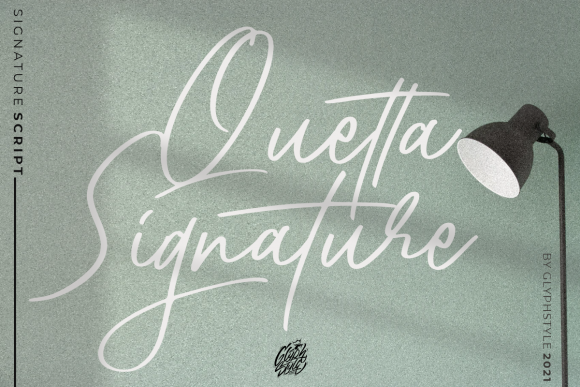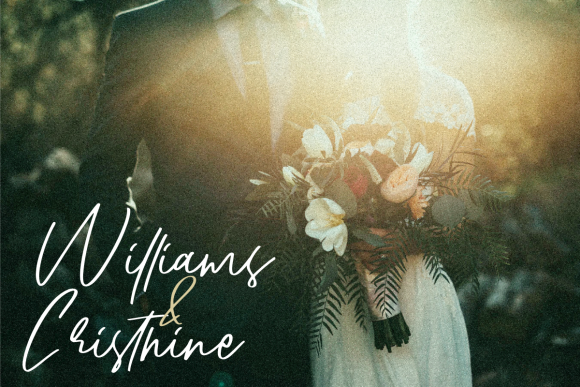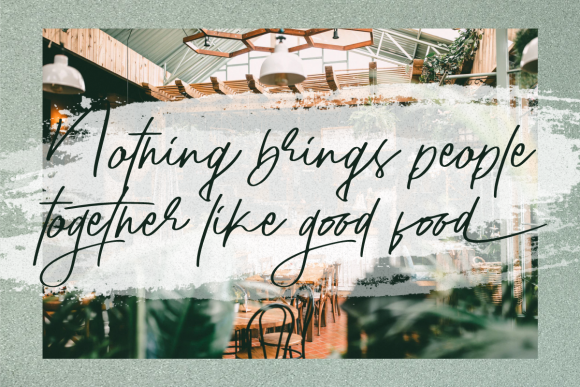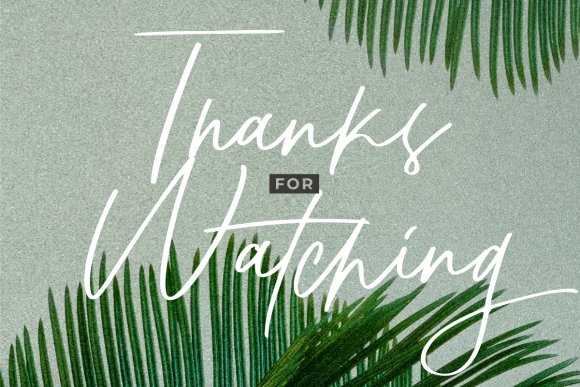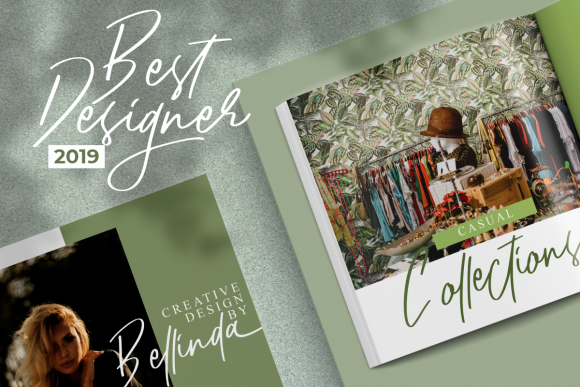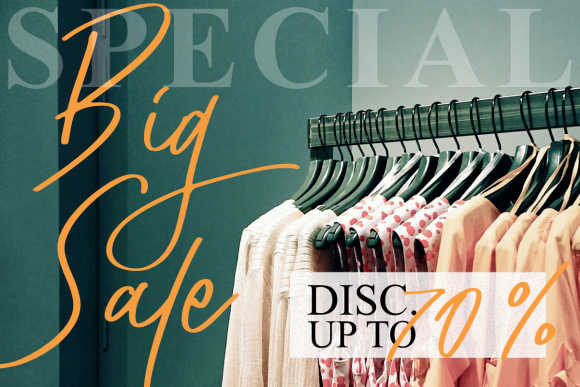
Quetta Signature Font
About Quetta Signature Font
Quetta Signature is a flexible yet dazzling script font. This font is neatly crafted and highly detailed. Quetta Signature is PUA encoded which means you can access all glyphs and swashes with ease!